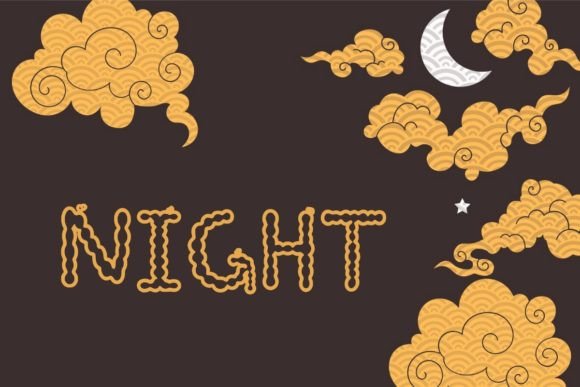
Discover the Whimsical World of Clouds Font: A Modern Display Font for Creative Designs
Are you a designer or crafter looking for a font that can add a touch of playfulness and quirkiness to your designs? Look no further than Clouds Font, a modern and lovely display font that’s perfect for creating eye-catching designs for children’s content, decorations, and posters. In this article, we’ll take a closer look at Clouds Font, its features, and how you can use it to elevate your designs.
What is Clouds Font?
Clouds Font is a modern display font that’s designed to bring a sense of whimsy and fun to your designs. Its distinctively quirky style makes it an excellent choice for designs that require a playful touch. Whether you’re creating a children’s book, a poster, or a decoration, Clouds Font is sure to capture the attention of your audience.
Key Features of Clouds Font
So, what makes Clouds Font so special? Here are some of its key features:
- Modern and Lovely Design: Clouds Font has a modern and lovely design that’s perfect for creating eye-catching designs.
- Quirky and Playful Style: The font’s quirky and playful style makes it an excellent choice for designs that require a touch of fun and whimsy.
- High-Quality Letters: Clouds Font features high-quality letters that are perfect for creating clear and readable designs.
- Easy to Read: Despite its playful style, Clouds Font is easy to read, making it perfect for designs that require a clear message.
Use Cases for Clouds Font
So, how can you use Clouds Font in your designs? Here are some use cases to get you started:
- Children’s Content: Clouds Font is perfect for creating children’s books, nursery rhymes, and other kids’ content.
- Decorations: The font’s playful style makes it an excellent choice for creating decorations, such as wall art, garlands, and other craft projects.
- Posters: Clouds Font is perfect for creating eye-catching posters for events, promotions, and other marketing campaigns.
- Crafting Projects: The font’s whimsical style makes it an excellent choice for crafting projects, such as card making, scrapbooking, and other paper crafts.
Tips for Using Clouds Font
Here are some tips for using Clouds Font in your designs:
- Use it as a Display Font: Clouds Font is designed to be used as a display font, so use it to create eye-catching headlines and titles.
- Experiment with Colors: The font’s playful style makes it perfect for experimenting with different colors and color combinations.
- Pair it with Other Fonts: Clouds Font can be paired with other fonts to create a unique and interesting design.
- Use it for Titles and Headlines: The font’s bold and playful style makes it perfect for using in titles and headlines.
| Font Name | Clouds Font |
| Author | ADART |
In conclusion, Clouds Font is a modern and lovely display font that’s perfect for creating eye-catching designs for children’s content, decorations, and posters. Its quirky and playful style makes it an excellent choice for designers and crafters who want to add a touch of fun and whimsy to their designs. With its high-quality letters, easy readability, and versatility, Clouds Font is sure to become a favorite in your design arsenal.